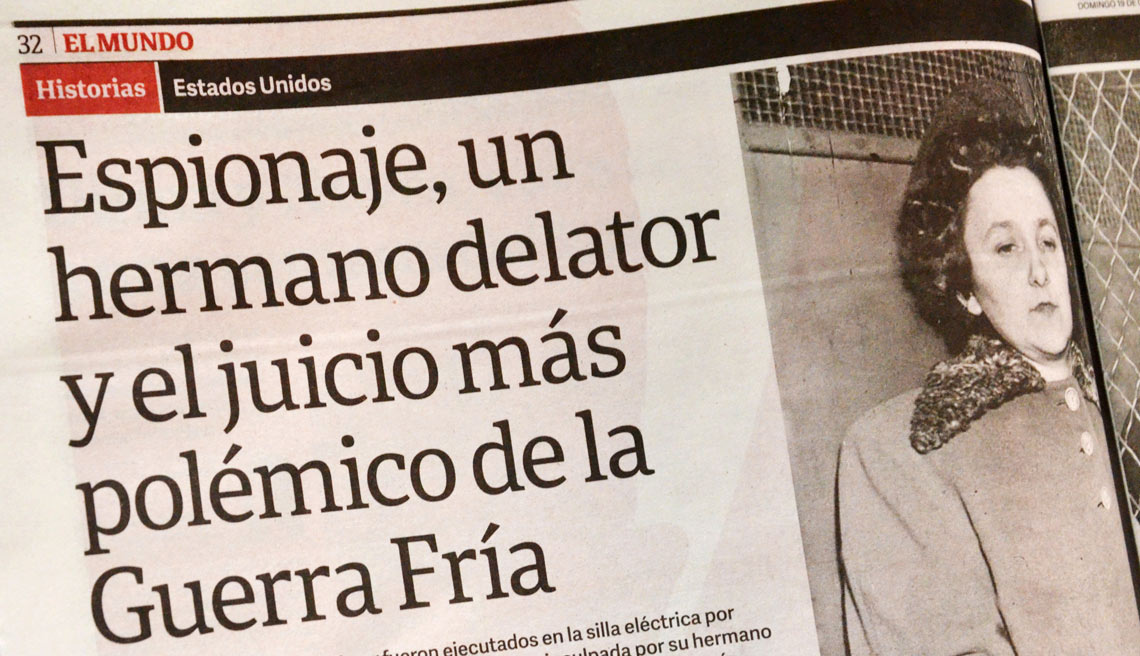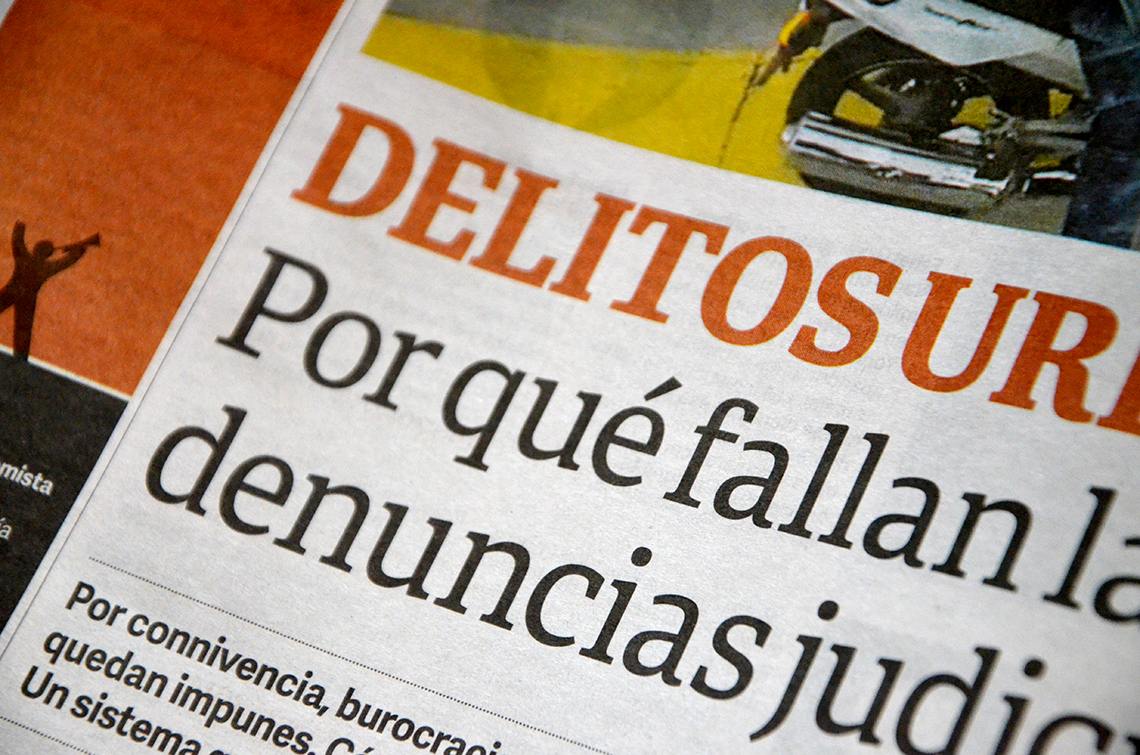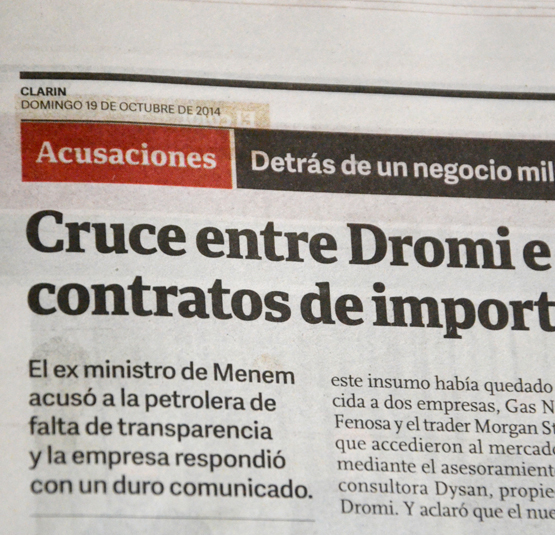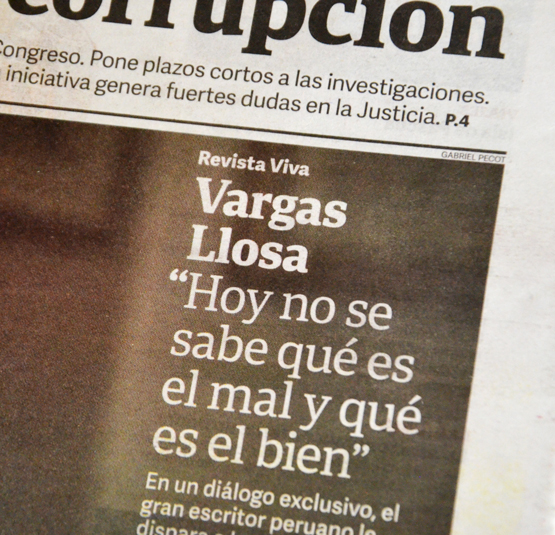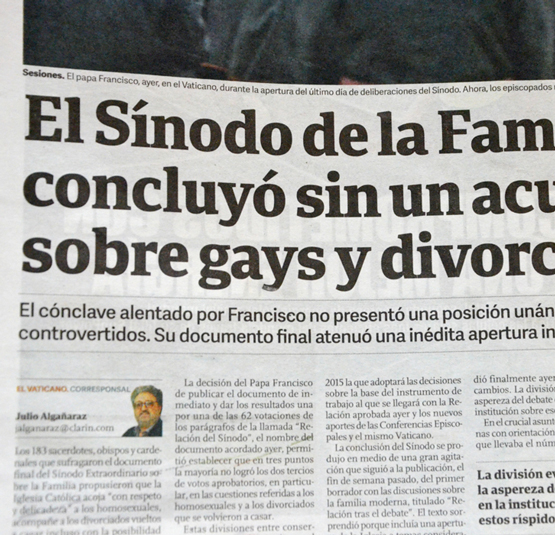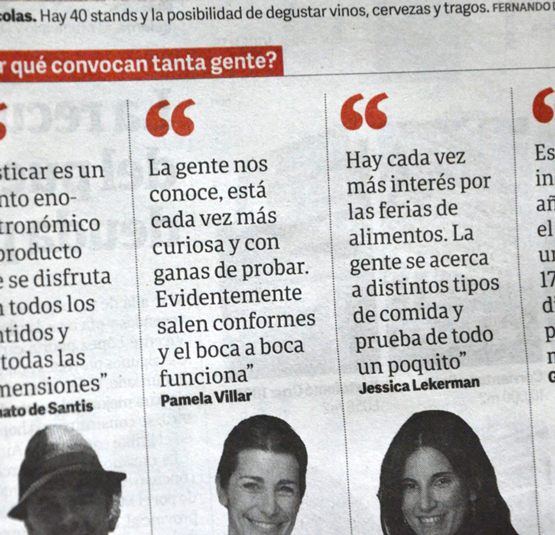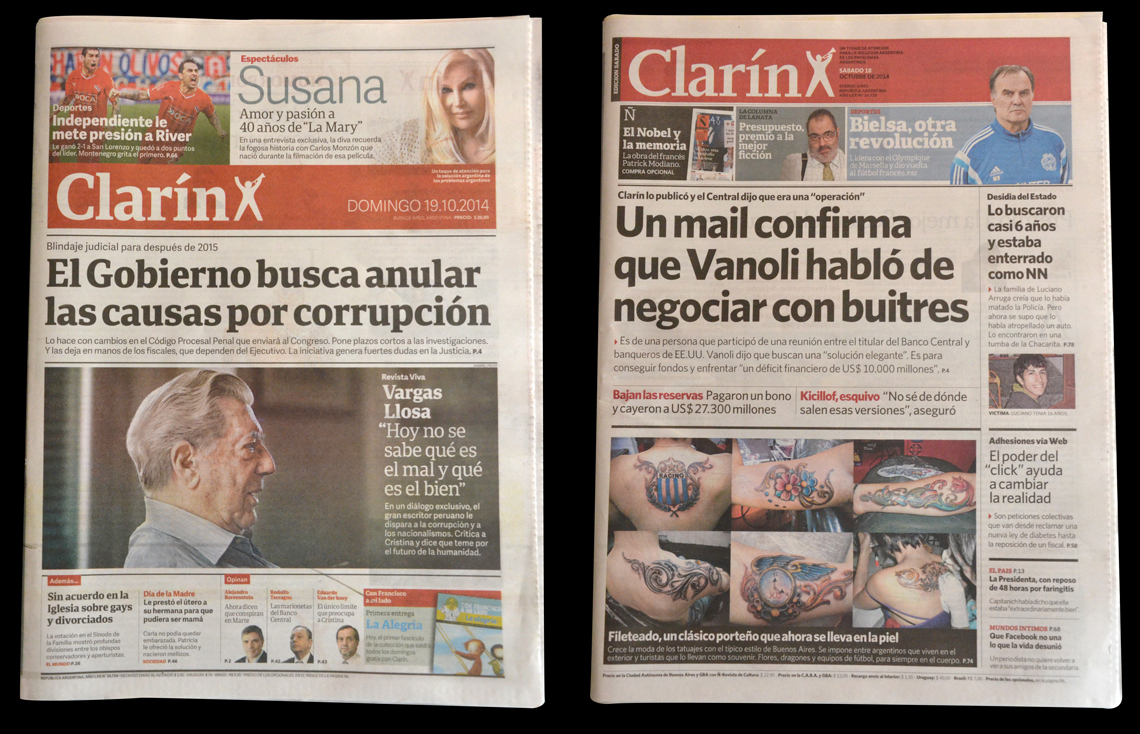
TypeTogether was contacted to create a new titling typeface for the largest newspaper in Argentina: Clarín. The commission was part of a larger redesign project that was led by Pablo Ruiz, senior designer and project manager at Catalan studio Cases i Associats, and Clarin’s art director Gustavo LoValvo.
Clarin Titulos & Adelle Sans
Clarin Titulos Regular & Bold
Tailored newspaper typeface for healdines
Clarín started using Adelle and Adelle Sans, both designed by Burian and Scaglione, in 2012. And they became widely used as highlight fonts in the main body of the newspaper and as titling and multiple purpose type families in sections like Culture and Sports.
The goal for the new custom font was to work alongside the Adelles, replacing Whitney as the main titling typeface and providing a more modern, newsy and refined feel to the newspaper. For consistency purposes, the lettering for the logo was also redesigned.
The new typeface, called Clarín Títulos, was built over the base of Adelle and Adelle Sans, but it brings its own character to the mix. It was developed as a two weight family, with an extrabold weight for the main headlines and a regular weight for the opinion columns.
Comparison On the left is the new layout using Clarin Titulos and Adelle Sans together with a redesigned masthead that is based on Clarin Titulos. The symbol has also been fine-tuned and updated. On the right is the previous design for comparison.